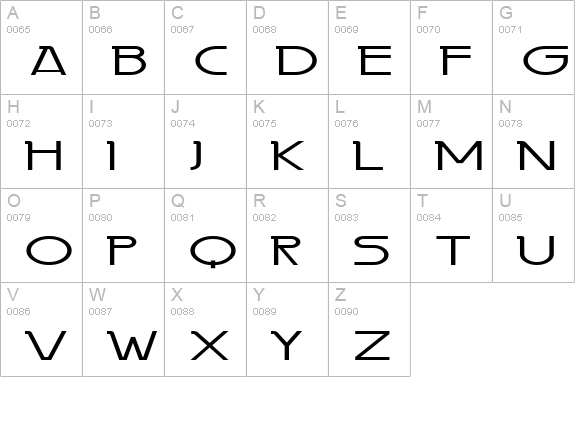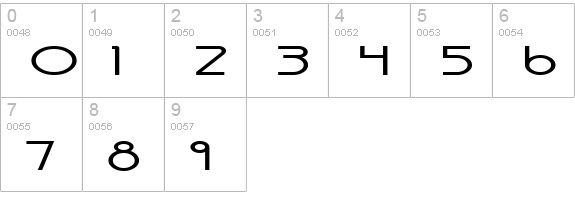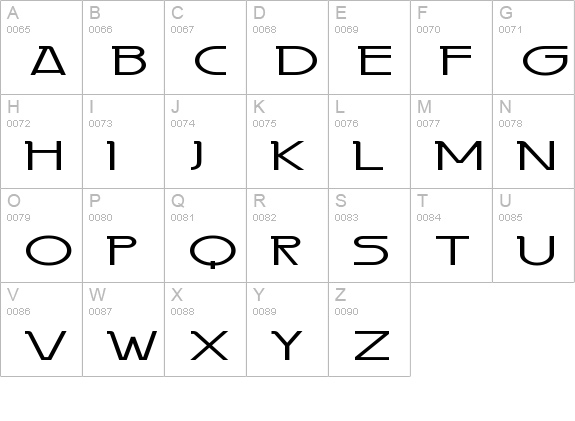
Persia Extended Normal Font Details
Persia Extended Normal is the standard, neutral, extended-width variant in the Persia typeface family \xE2\x80\x94 well suited to general body text, paragraphs, and standard typographic work.
Persia Extended Normal font is a visually striking and elegantly designed typeface that exudes a sense of sophistication and modernity. Its sleek and elongated letterforms effortlessly command attention and make a lasting impression. This font is perfect for creating eye-catching headlines, stylish logos, and impactful signage. Its versatility allows it to be used in a wide range of design projects, from branding and advertising materials to web design and editorial layouts. The Persia Extended Normal font offers a harmonious balance between legibility and creativity, making it suitable for both professional and personal use. Its clean lines and well-defined shapes ensure readability, while its unique style adds a touch of uniqueness to any text. One of the best aspects of this font is that it is available for free download at FontsMarket.com. This means that designers and enthusiasts alike can easily access this beautiful and functional typeface without any cost. Whether you are a professional designer looking to enhance your typographic resources or a beginner seeking to experiment with new fonts, Persia Extended Normal font is a fantastic addition to your collection. With its freely available download, this font opens up a world of creative possibilities. It empowers designers to express their ideas and concepts with clarity and style. Its modern aesthetic and versatility make it an excellent choice for a wide range of design projects. In conclusion, Persia Extended Normal font is a captivating and dynamic typeface that effortlessly combines elegance and modernity. Its freely available download at FontsMarket.com makes it accessible to all, enabling designers to elevate their work with this stunning font. Whether for professional use or personal projects, this font is sure to leave a lasting impression.